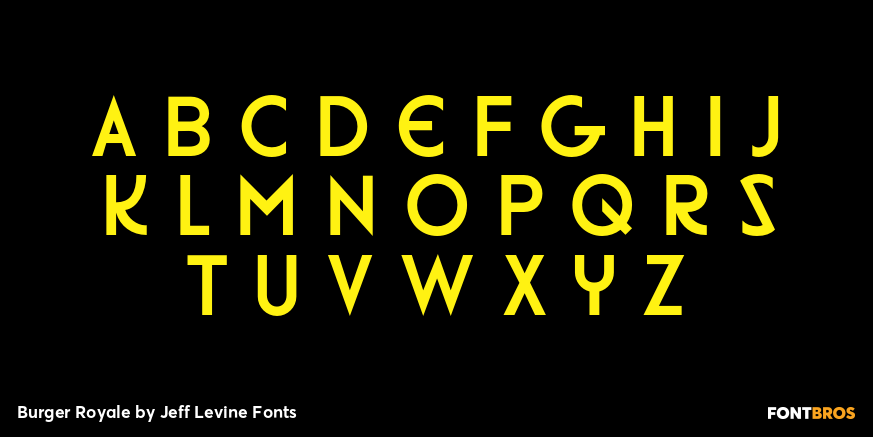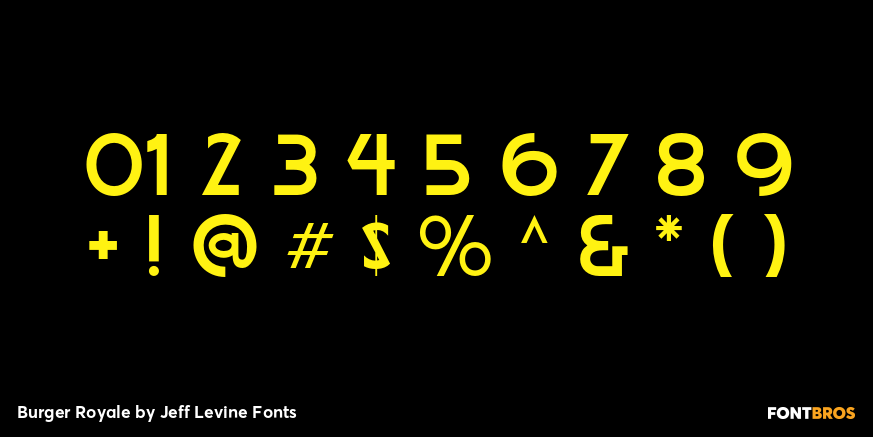
Burger Royale
Burger Royale JNL by Jeff Levine is a bold, sans serif font with a slight Deco feel, inspired by the logo of a former Florida chain of hamburger shops called Royal Castle.